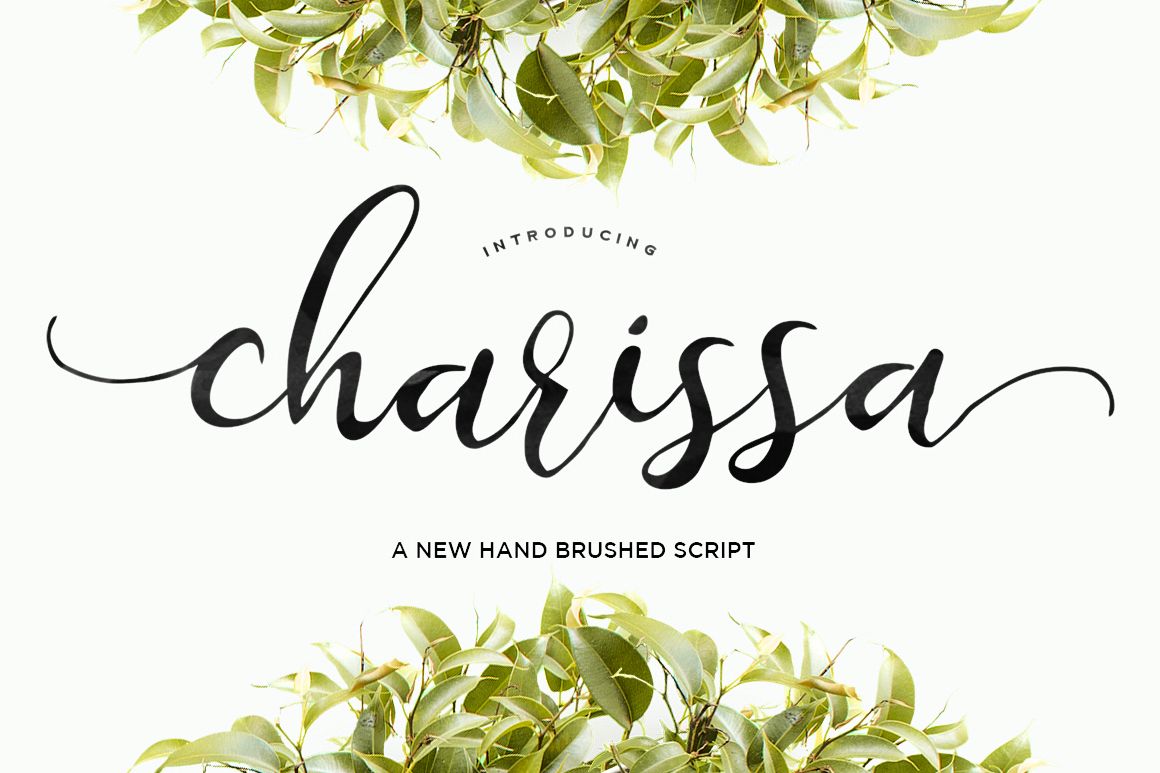
Charissa Script
Charissa Script is a new hand brushed font , elegant, organic fun with dancing baseline. Different alternates and swashes to the beginning and ends of all lowercase. Features 307+ glyphs and 130+ alternate characters. Opentype features with ligatures, stylistic sets and International support for most Western Languages is included. This fonts can be used for various purposes.such as headings, signage, signature, t-shirt, letterhead, wedding invitation, logos, news, posters, lable, badges etc. Charissa Script is coded with PUA Unicode, which allows full access to all the extra characters without having special designing software. Mac users can use Font Book , and Windows users can use Character Map to view and copy any of the extra characters to paste into your favourite text editor/app. Fonts Included: Charissa Script (OTF) Charissa Script (TTF) To enable the OpenType Stylistic alternates, you need a program that supports OpenType features such as Adobe Illustrator CS, Adobe Indesign & CorelDraw X6-X7, Microsoft Word 2010 or later versions. How to access all alternative characters using Adobe Illustrator: https://www.youtube.com/watch?v=XzwjMkbB-wQ How to access all alternative characters, using Windows Character Map with Photoshop: https://www.youtube.com/watch?v=Go9vacoYmBw Thank you very much for purchasing and please let me know if you have any questions.